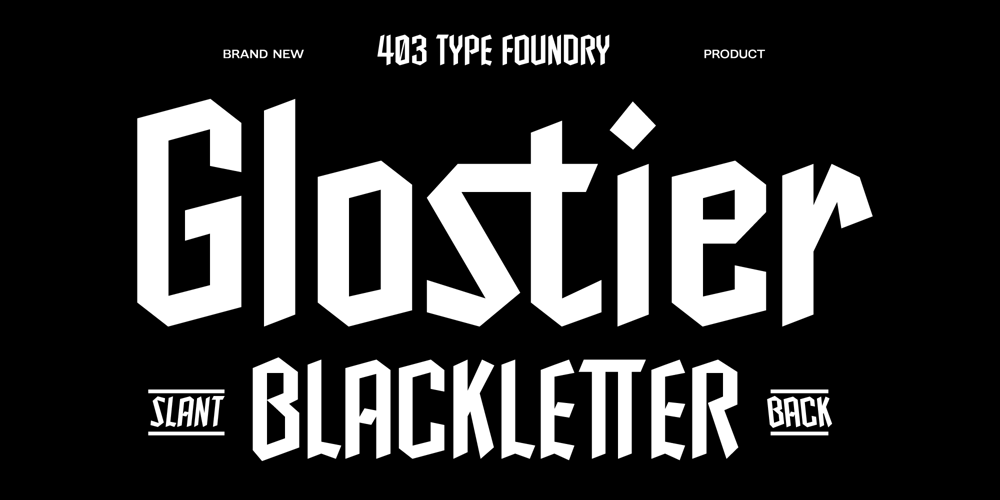
403 Glostier
403 Glostier font
403 Glostier Font Family was designed by Umar Al Farouq, Jodi El Ghazi, Febri Riansah and published by 403TF. 403 Glostier contains 3 styles and family package options. 403 Glostier is a contemporary blackletter typeface that reimagines the gothic script with a modern twist. Its slanted and backslant features create a dynamic and energetic feel, while its intricate details and sharp edges evoke a sense of strength and sophistication. With 530 glyphs, OpenType features, ligatures, and multilingual support, 403 Glostier offers a versatile tool for designers seeking a unique and impactful typographic solution.